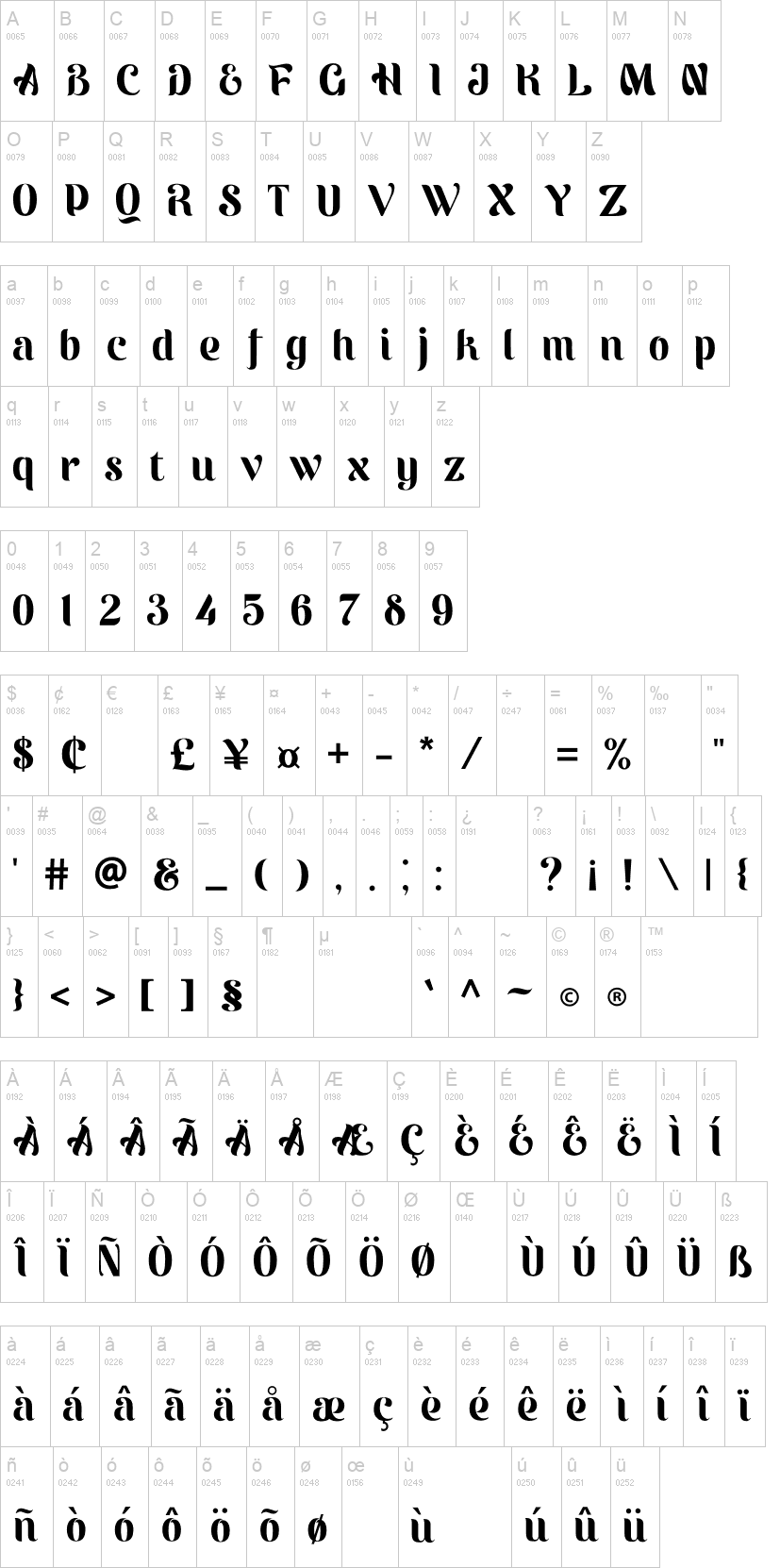
Note of the authorthis font is handmde, making the characters one by one so that its originality is guaranteed, this font is suitable for use for formal and non-formal purposes, banners, logos, posters and others